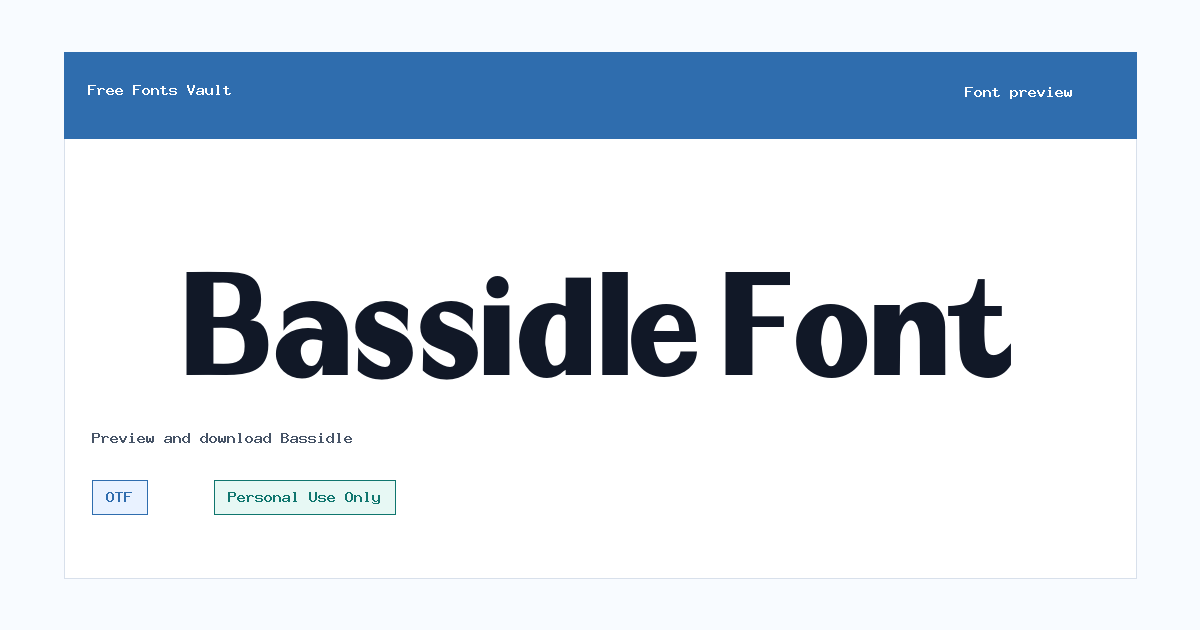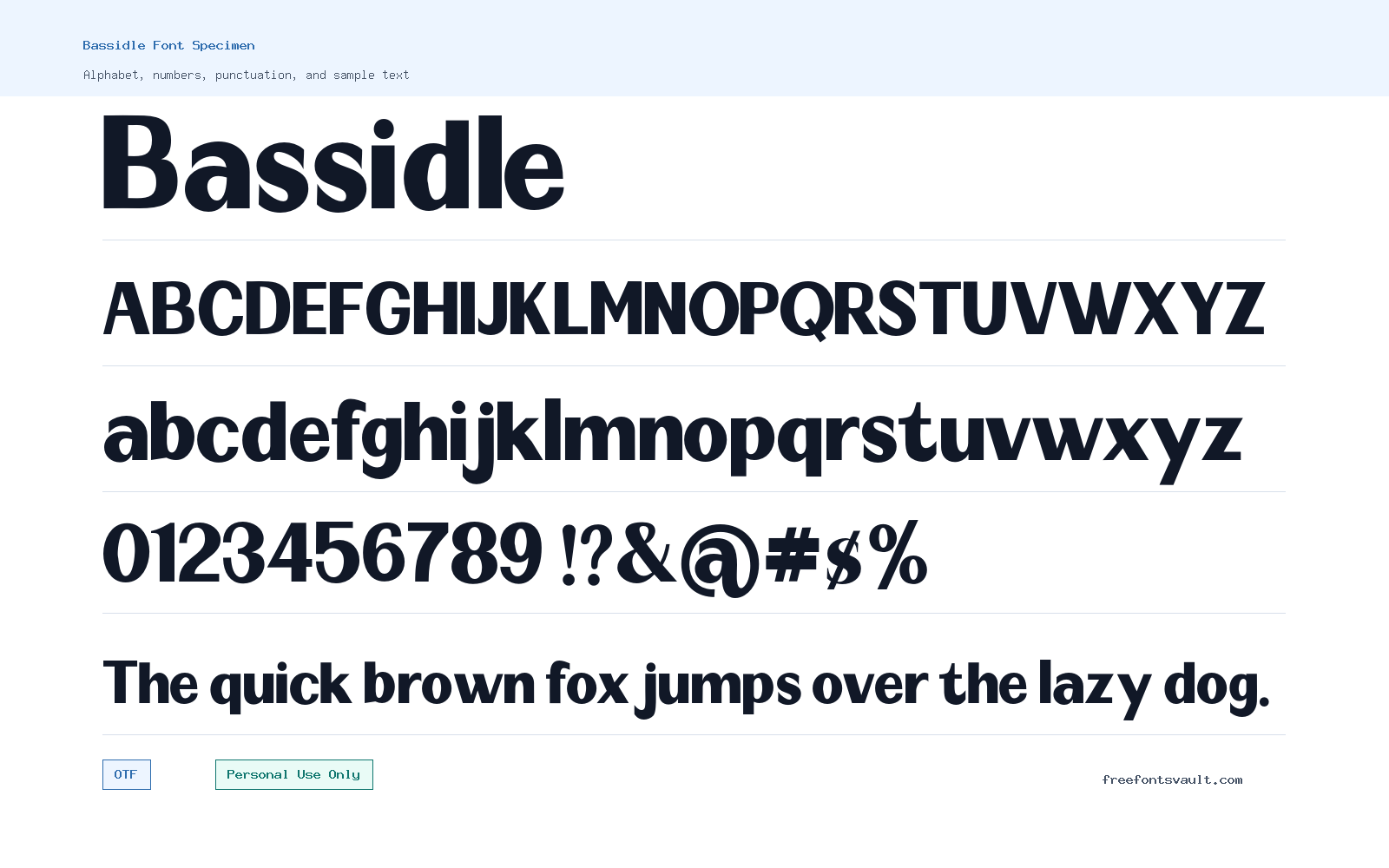
Bassidle
- Designer Joss Type
Bassidle font.
Bassidle is a medium-weight sans serif font by Joss Type. It is offered as an OTF font file and is marked for personal use only, so it is best approached as a preview-and-test download rather than a ready commercial asset.
About Bassidle
Bassidle keeps things simple: one regular-style, medium-weight OpenType font file for clean text experiments. Because the font listing identify it as a sans serif, it should be tested where straightforward letterforms are useful, such as titles, short labels, social graphics, personal mockups, and small branding studies. Use the preview box to check the exact character shapes, spacing, punctuation, and number style before downloading, especially if your design depends on a specific mood or tight layout.
This font is most useful when you need a single-weight sans serif for quick personal projects. Try it first in short words, then in a full sentence, and finally at the size you plan to use. Medium-weight fonts can work well for headings and interface-style labels, but the real test is how the spacing behaves in your own text. If you need a complete identity system, long-form body copy, multiple weights, italics, or confirmed commercial rights, review the license and consider whether this single OTF file is enough for the job.
- Medium-weight sans serif style
- Single regular-style variant
- Suitable for previewing short text, headings, and personal design tests
- Personal posters, quotes, and social media graphics
- Heading tests, mockups, and short display text
- Simple labels, name treatments, and layout experiments
- Trying a clean sans serif look before choosing a production font
What weight is Bassidle?
The listed file is a medium-weight font with a normal style. No extra weights or italic styles are listed.